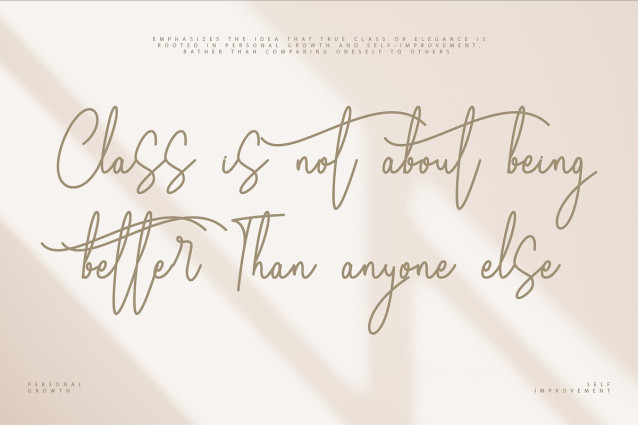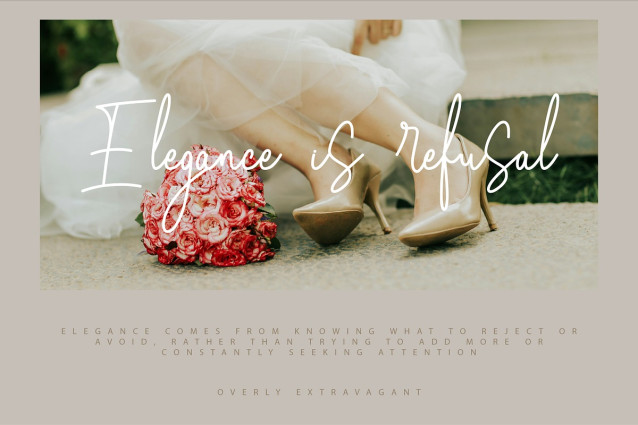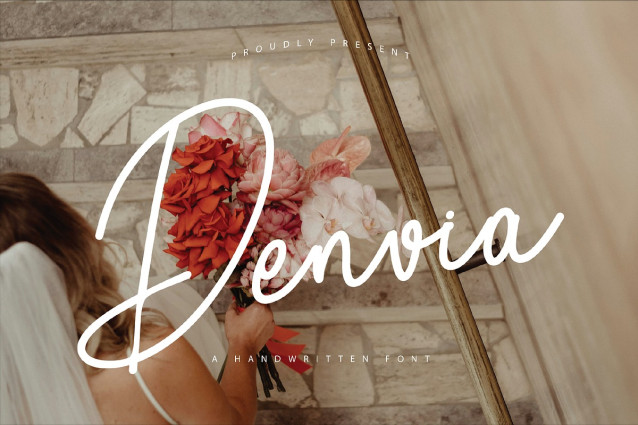
Denvia Handwriting Font
Denvia Handwriting Font is a beautifully designed handwritten font with a soft and flowing script. It radiates elegance and charm, making it perfect for projects that require a personal, stylish touch. Whether you’re creating wedding invitations, branding materials, or custom typography, Denvia’s fluid strokes bring a refined, artistic quality to your designs.